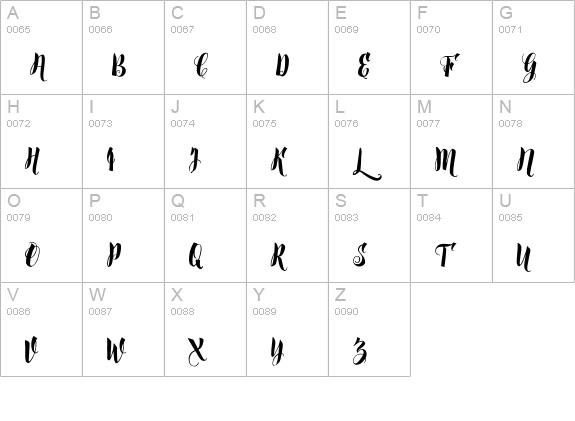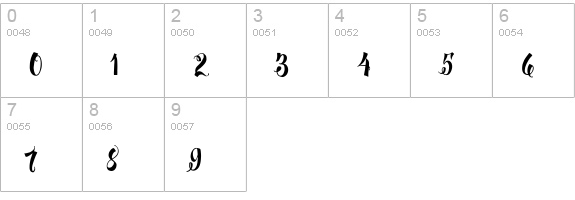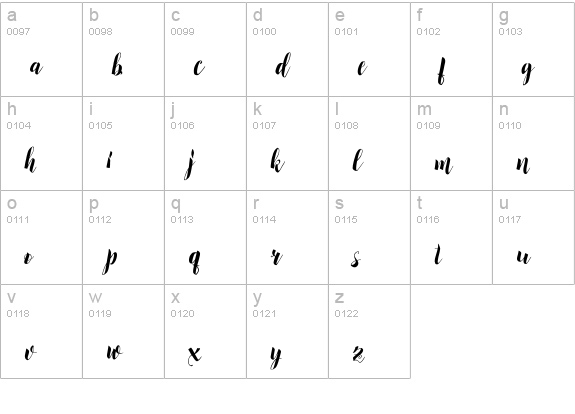
Bruselo Script Font Details
Bruselo Script font is a stunning handwritten typeface that exudes elegance and charm. Its flowing curves and graceful lines give it a sophisticated yet approachable feel, making it perfect for a wide range of design projects. Whether you're working on invitations, branding, or social media graphics, Bruselo Script will add a touch of class to your work. What's even better is that Bruselo Script font is available for free download at FontsMarket.com. You can easily access this beautiful font and use it in your projects without any cost. Don't miss out on the opportunity to enhance your designs with the beauty of Bruselo Script font. Download it now and elevate your creations to the next level.